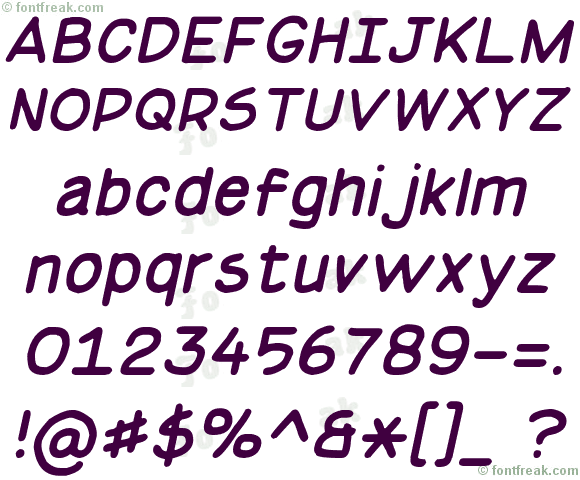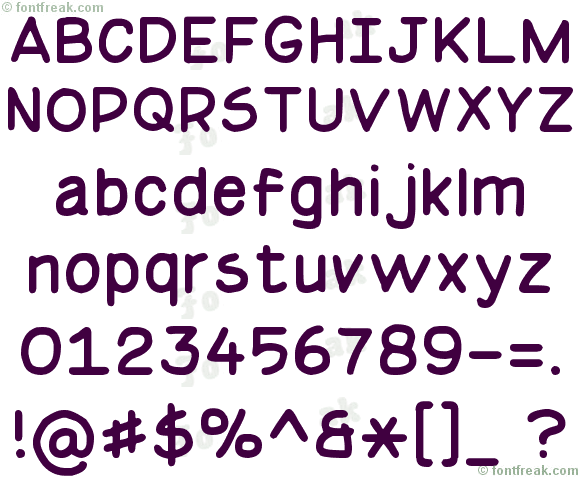
Basic Comical Italic NC
Basic Comical Regular NC
About Basic Comical Italic NC
The Basic Comical Italic NC font by Jayvee Enaguas is a delightful display typeface that falls into the comical category. Released in 2009 and refined in 2010, this font captures a playful and inviting aesthetic. Its italicized design features a medium stroke weight with a slight contrast that adds a sense of movement and whimsy. The letters are well-spaced, ensuring readability while exuding a lighthearted charm that makes it suitable for a variety of creative projects.
This font shines in several specific use cases. It's an excellent choice for children’s book covers, where the fun and quirky style can captivate young readers. Additionally, it works well for greeting cards, adding a cheerful touch to birthday or holiday messages. Restaurant menus can also benefit from the font's approachable vibe, making it perfect for casual dining establishments looking to convey a friendly atmosphere. Moreover, social media graphics and promotional materials can utilize Basic Comical Italic NC to engage audiences with a sense of fun.
Targeting graphic designers, small business owners, and content creators alike, this font serves as a versatile tool for conveying a playful brand identity. Its unique character allows users to stand out in a crowded market, making it particularly appealing for projects that require a touch of humor and creativity.
What sets the Basic Comical Italic NC font apart is its ability to blend simplicity with playfulness. Its free availability as a freeware font makes it accessible for anyone looking to inject a bit of fun into their designs. For those interested, the Basic Comical Italic NC font free download offers an opportunity to explore its unique features and incorporate them into various projects, ensuring that creativity knows no bounds.